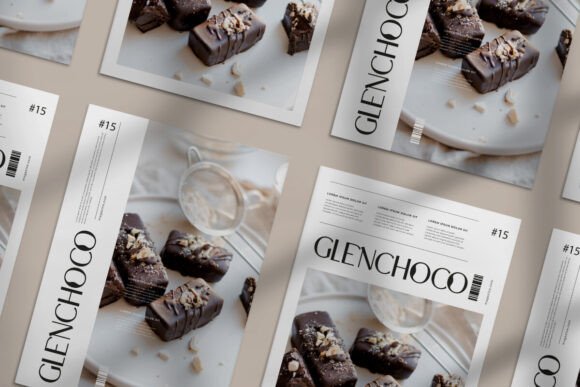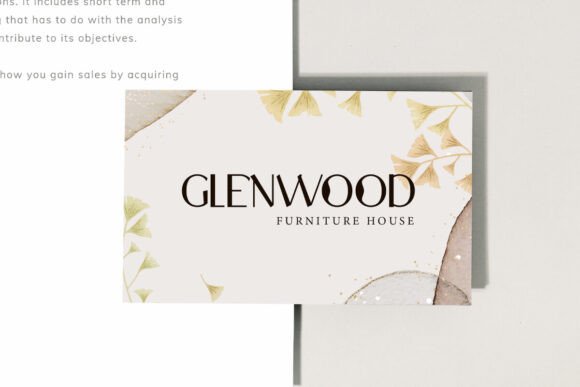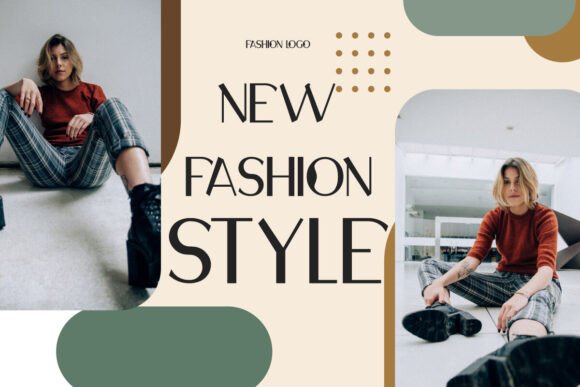
Glenwood Font: Unique Serif Display for Elegant Logo Design & Branding
About the Glenwood Font
Let us introduce you to Glenwood Font, where timeless design meets modern craftsmanship. Glenwood Font is a unique, elegant, unusual serif display font. This font has unique shapes on some letters, so it looks interesting and different. It will be perfect for any designs, such as brand image, cover, custom design, invitation, label, marketing material, menu, poster, product packaging, quote, signage, stationery, web, and many more!
Glenwood’s elegant yet unusual serifs make it ideal for headlines, short text blocks on posters or packaging, and high-end branding projects where a touch of distinction is desired. It excels in creating a sophisticated and memorable impression. However, its unique letterforms are not well-suited for body text or long paragraphs; readability would suffer. Avoid using it in UI contexts or situations requiring extensive text.
Its strong yet refined personality pairs well with clean sans-serif fonts like Montserrat or Open Sans for a balanced contrast. For a more luxurious feel, consider pairing it with a delicate script like Great Vibes, but use sparingly. A geometric sans-serif such as Futura would offer a modern counterpoint, highlighting Glenwood’s unique character.
Glenwood’s overall personality is sophisticated and refined, conveying a sense of understated luxury and premium quality. It’s best suited for brands aiming for an upscale, memorable image.
Glenwood Font Usage Examples
Glenwood Font Example